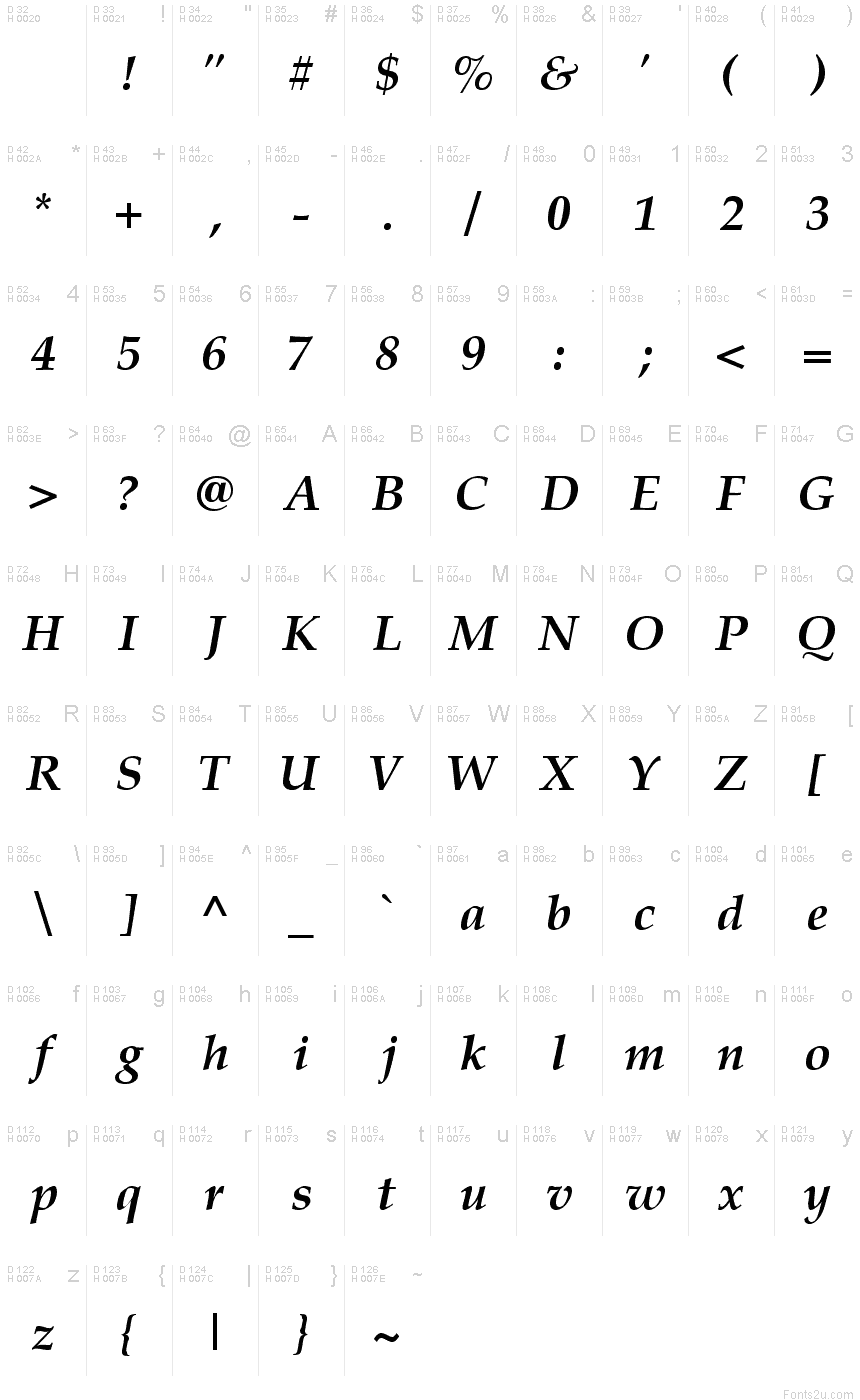
HI Piilani Bold Italic by Altsys is a free high-contrast serif font with a pronounced rightward lean. Broad capitals meet finer hairlines, and the serifs taper into crisp, pointed finishes. The lowercase is especially lively, with long rising and descending strokes that lend the lettering a formal, sweeping profile.
Designers in fashion, hospitality, and cultural publishing can use its poised drama for magazine covers and event posters. It can also shape restaurant branding with an elegant, slightly theatrical edge. There, the extended strokes can join a border or emblem, making the lettering part of the graphic.